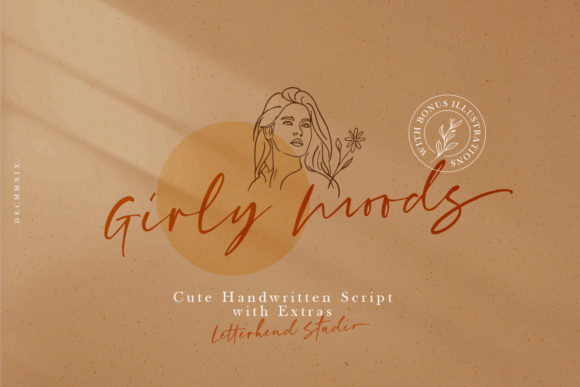
Unleash the captivating charm of your words with Girly Moods Font, a symphony of elegance and authenticity that will transform your designs into captivating works of art. Immerse yourself in the beauty of this exquisite script font, meticulously crafted by letterhend to evoke a sense of heartfelt connection and individuality.
Girly Moods Font is not just a font; it's an expression of your personality, a reflection of your unique style. With its graceful curves and delicate strokes, this font dances across the page, adding a touch of whimsy and enchantment to every project. Whether you're creating enchanting invitations, heartfelt letters, or eye-catching social media posts, Girly Moods Font will add a touch of magic that will leave a lasting impression.
Step into a world of endless creative possibilities with Girly Moods Font. Its versatility knows no bounds, making it the perfect choice for a wide range of design projects. From delicate wedding invitations to playful children's books, from enchanting logos to captivating blog posts, Girly Moods Font seamlessly adapts to your vision, bringing your words to life with a captivating allure.
Indulge in the beauty of Girly Moods Font and elevate your designs to new heights. Let your creativity soar as you explore the endless possibilities that this exquisite script font offers. Embrace the authenticity and charm of Girly Moods Font, and watch as your words dance across the page, captivating hearts and leaving a lasting impression.